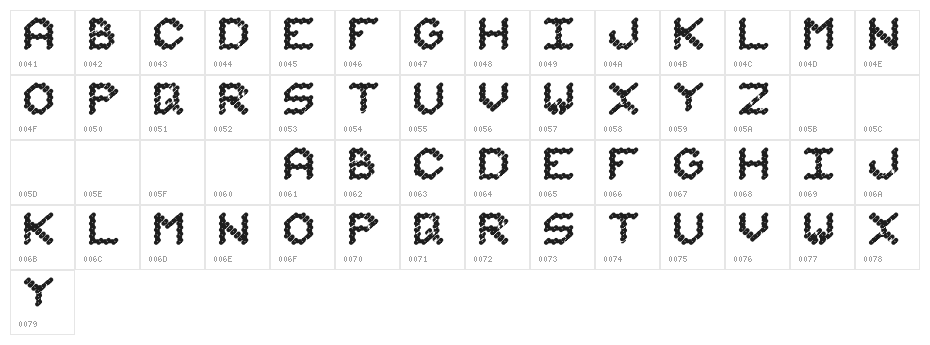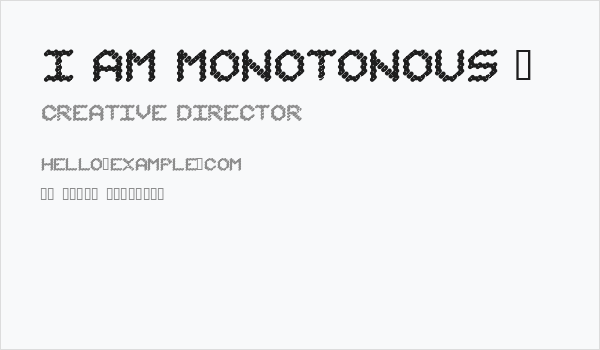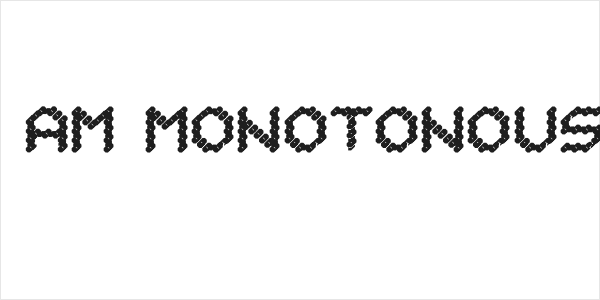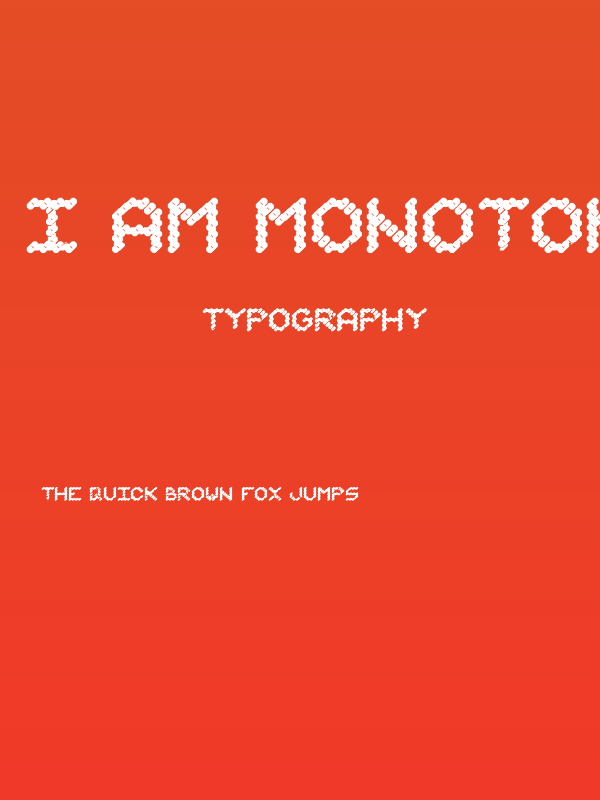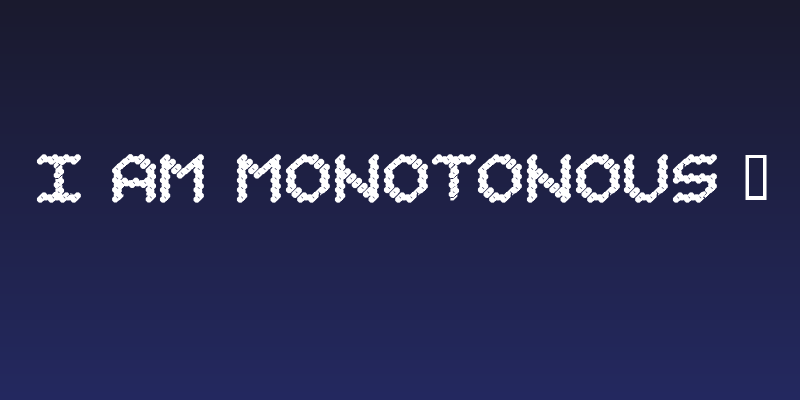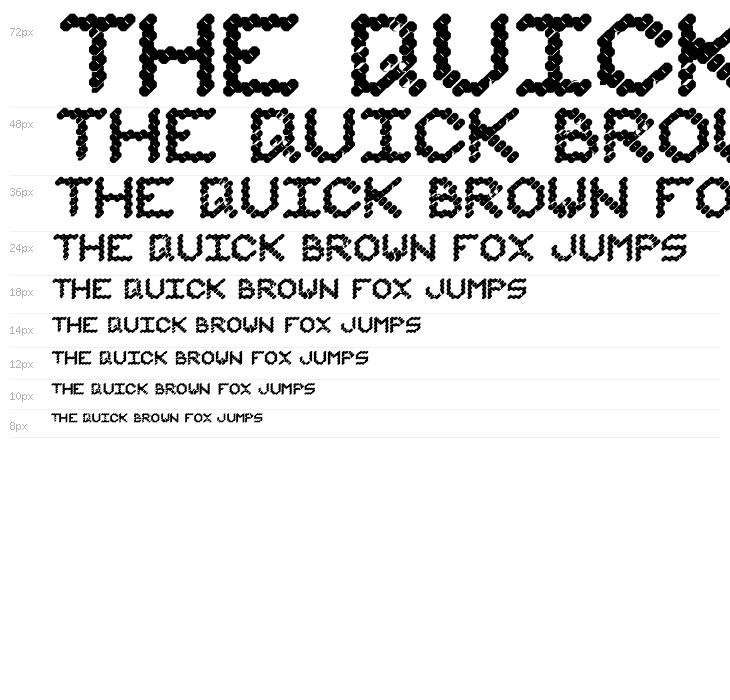
I am Monotonous 1 Font
I am Monotonous 1 Description
This font features a unique design where each character is composed of a series of small, hexagonal shapes, creating a textured and visually intriguing appearance. The uppercase letters are bold and consistent, maintaining a uniform height and width. The geometric pattern gives the font a modern and digital feel, reminiscent of pixel art or mosaic designs. The characters are evenly spaced, ensuring readability despite the intricate design. This font does not include lowercase letters or numbers, focusing solely on uppercase letters and a few special characters. The overall style is decorative and eye-catching, making it suitable for creative and artistic projects.
Use CaseLogos, Posters, Digital Art
Proposed ProjectsIdeal for digital art, posters, logos, and any project requiring a modern, textured look.